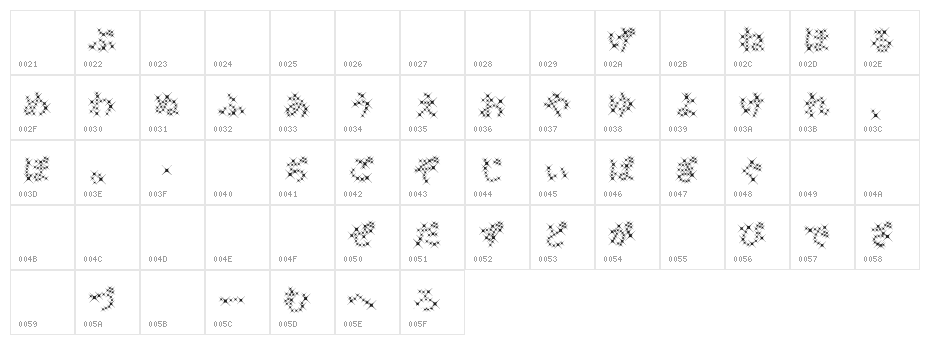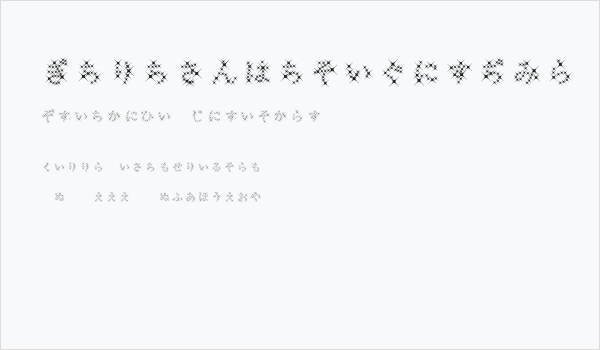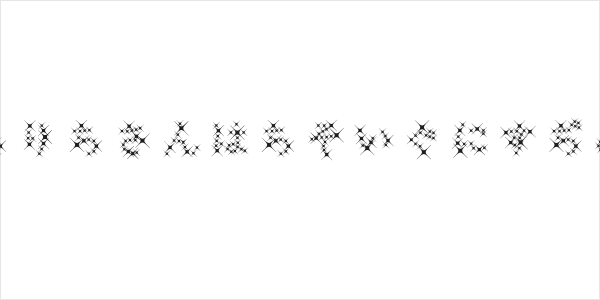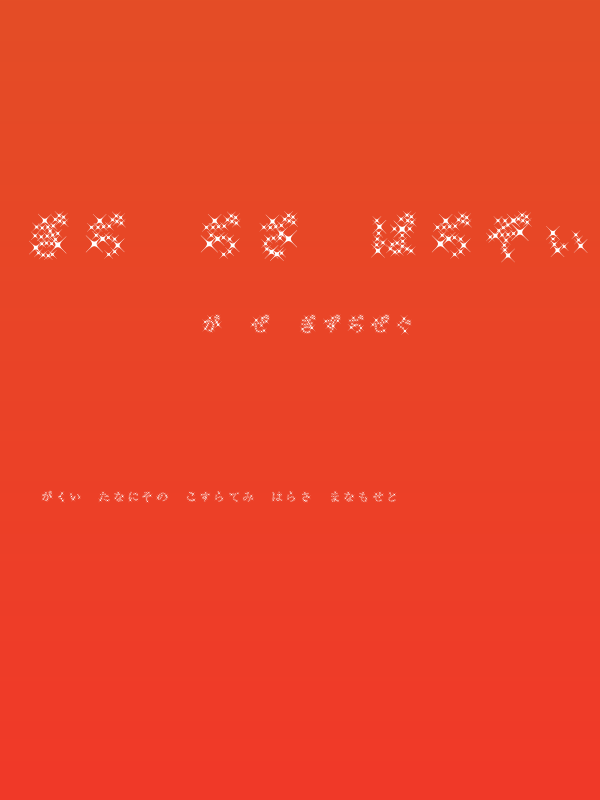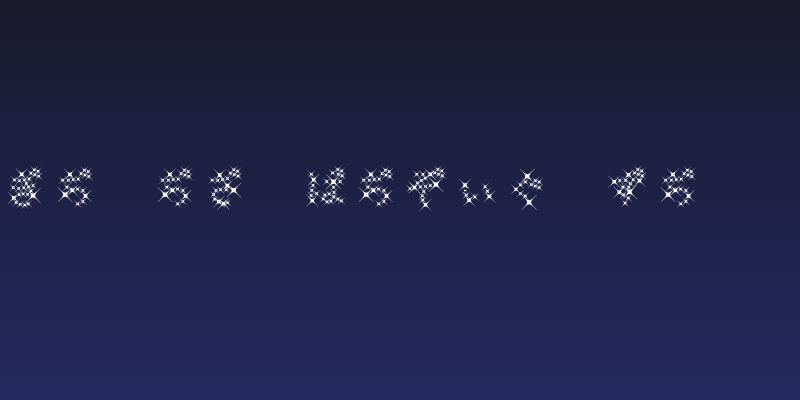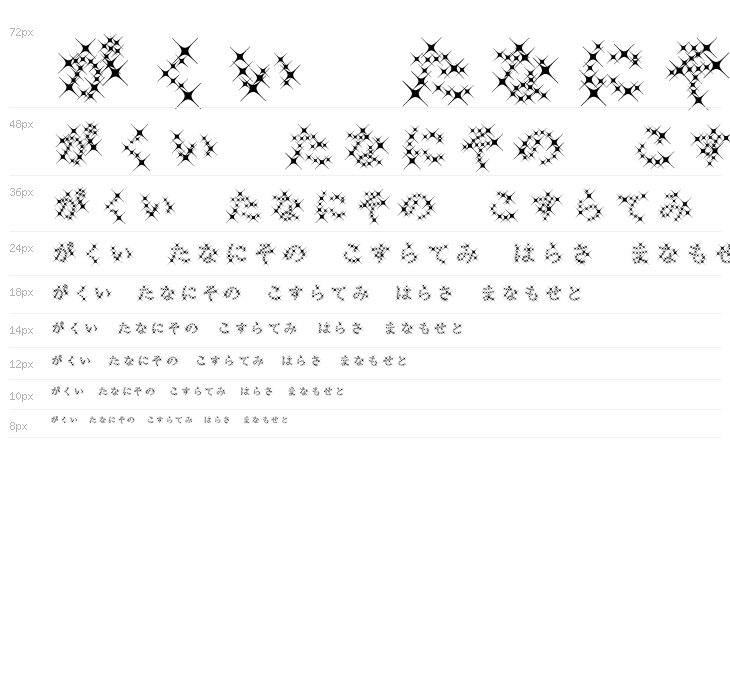
GalaxyfaceHirAno Font
GalaxyfaceHirAno Description
This font features a unique and decorative style with a starry, celestial theme. Each character is adorned with intricate star-like patterns, creating a sense of whimsy and fantasy. The letters are bold and eye-catching, making them suitable for creative and artistic projects. The font maintains a consistent design across all characters, ensuring a cohesive look. Its distinctive appearance makes it ideal for projects that require a touch of magic or a cosmic theme. The spacing between characters is relatively tight, enhancing the compact and dense look of the text.
| Proposed Projects | Ideal for fantasy-themed posters, book covers, event invitations, and creative branding. |